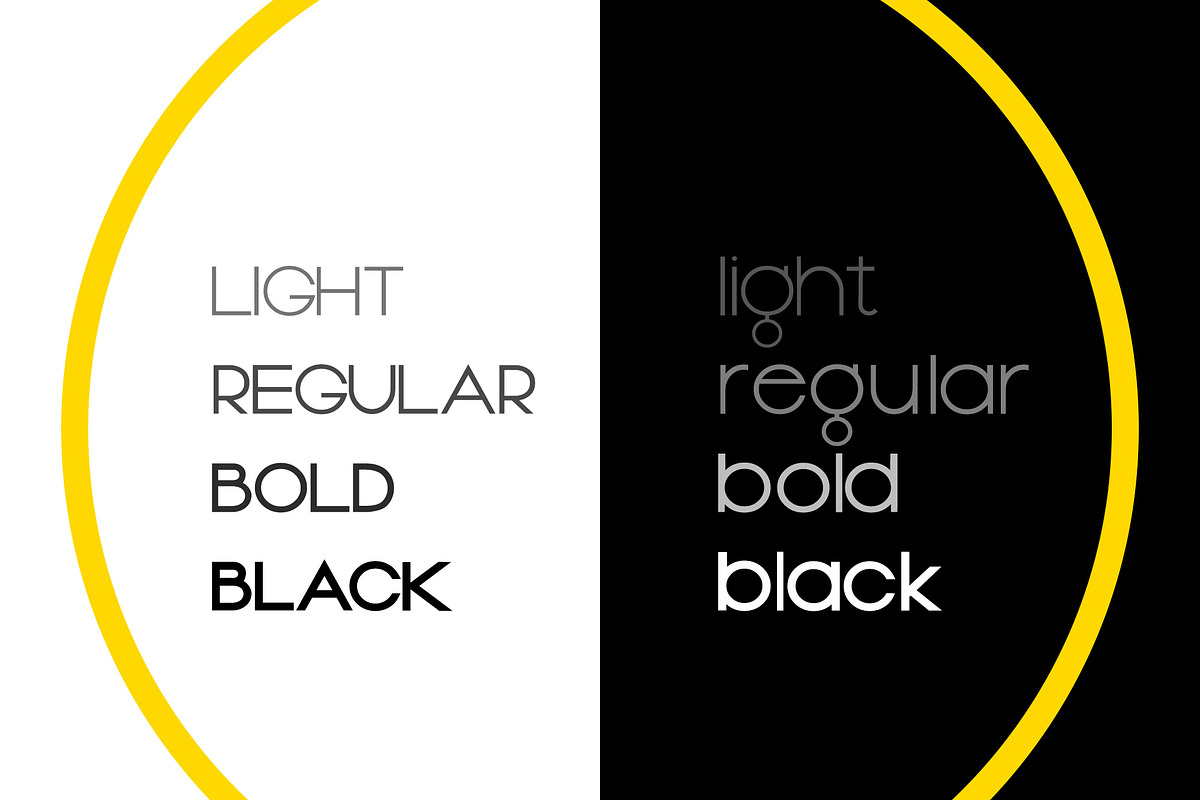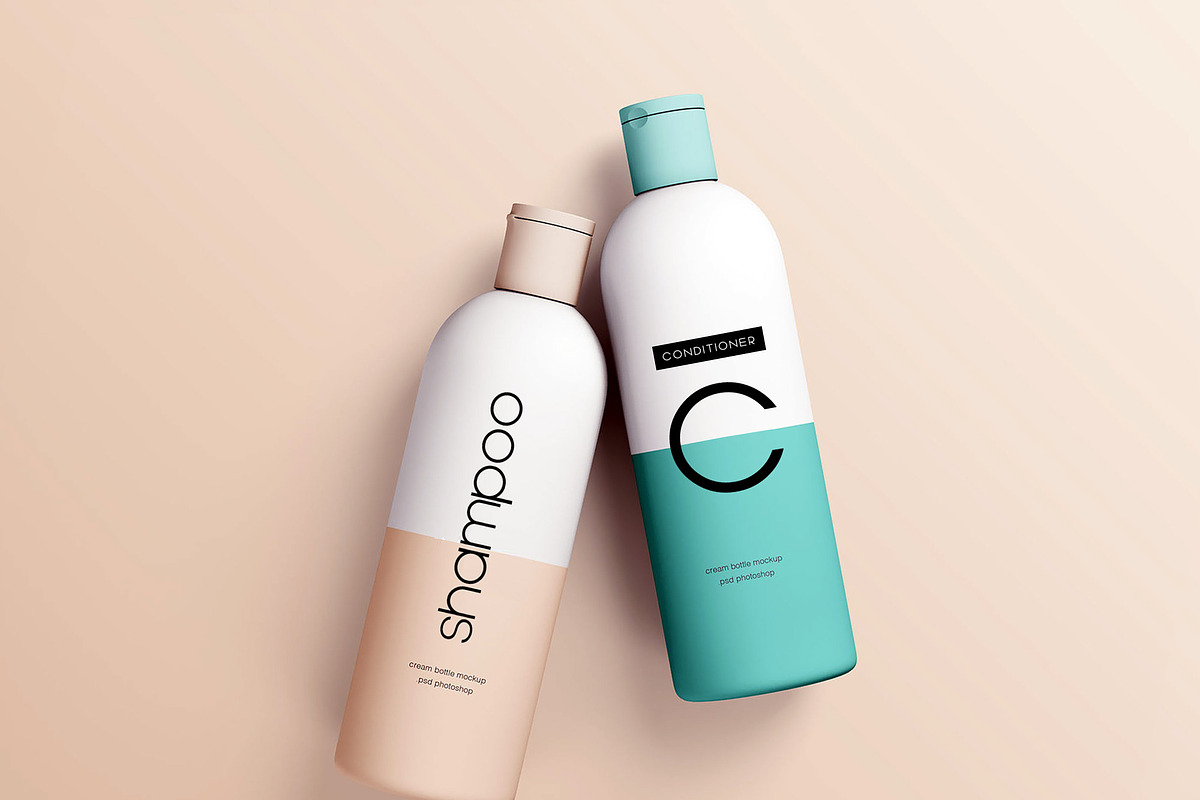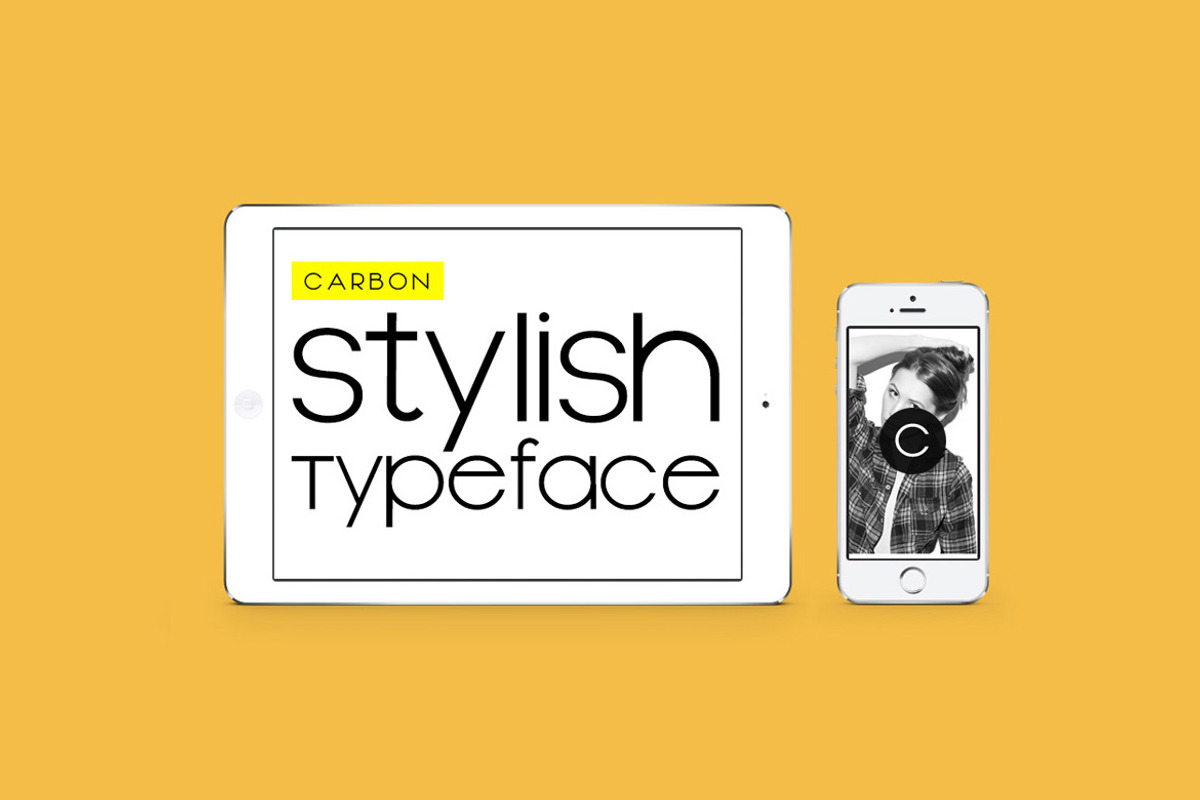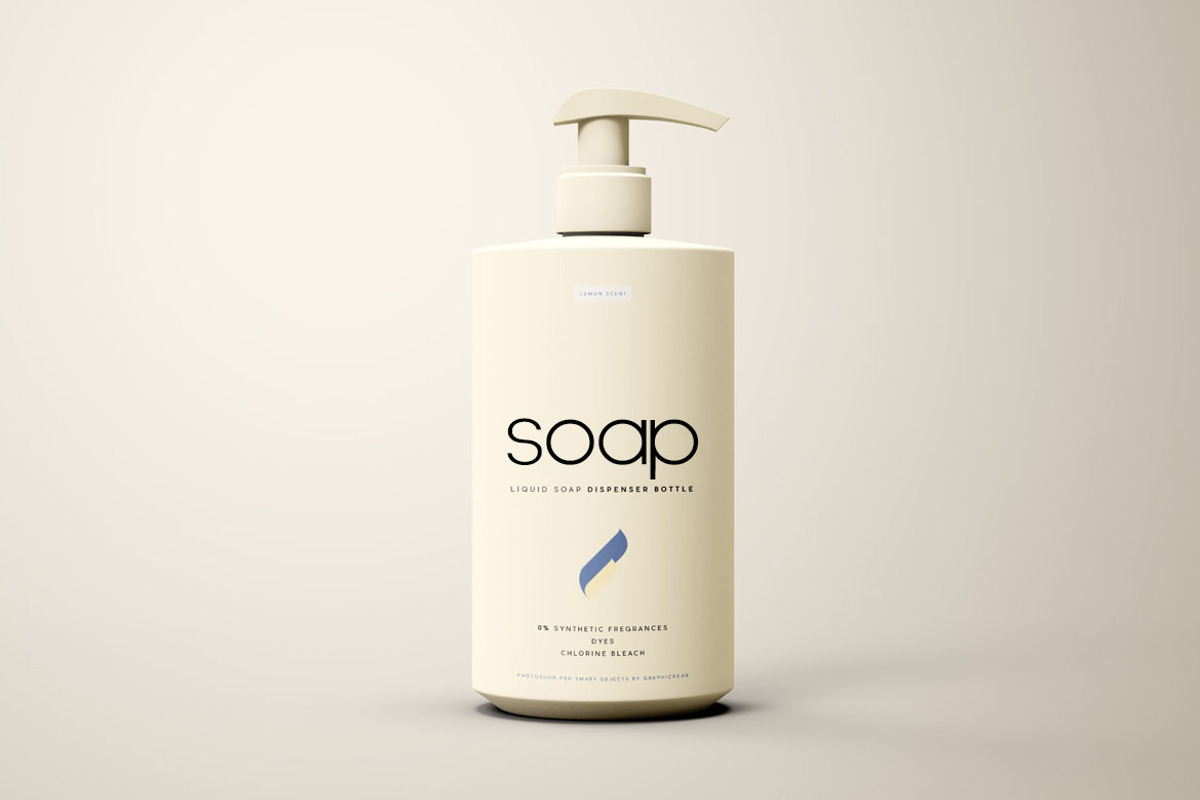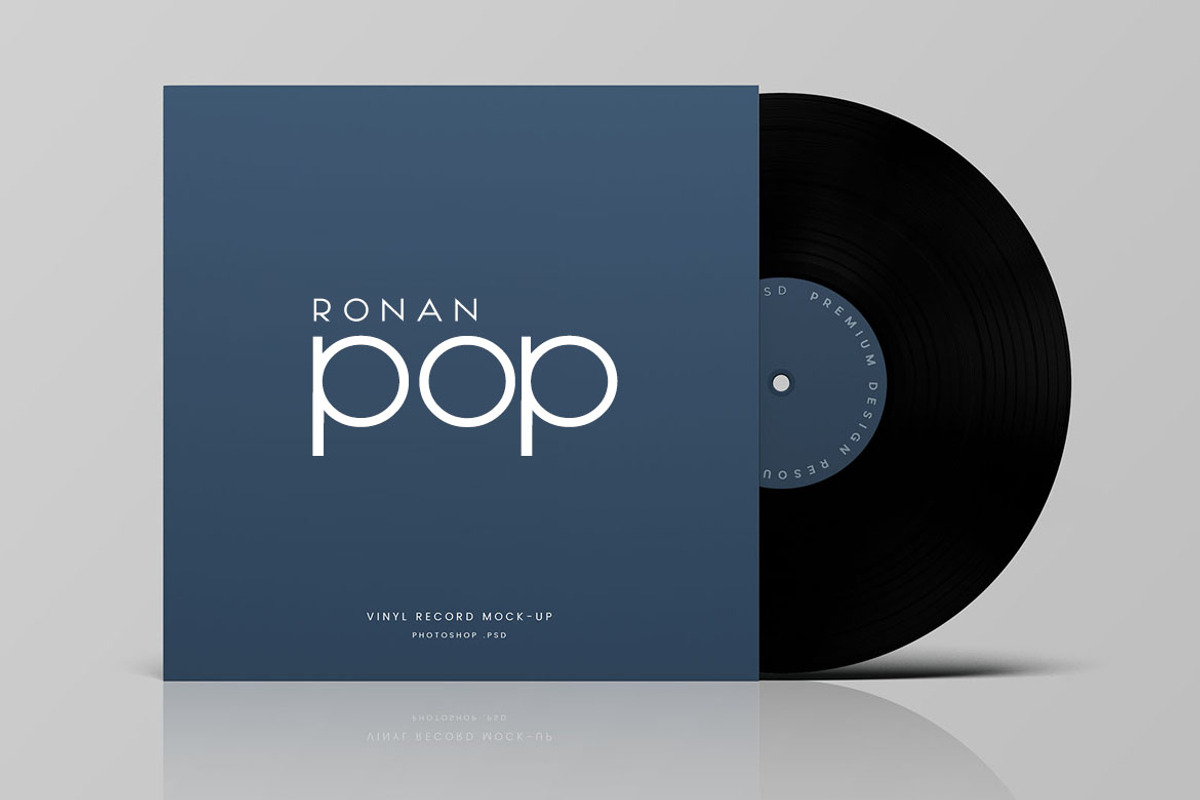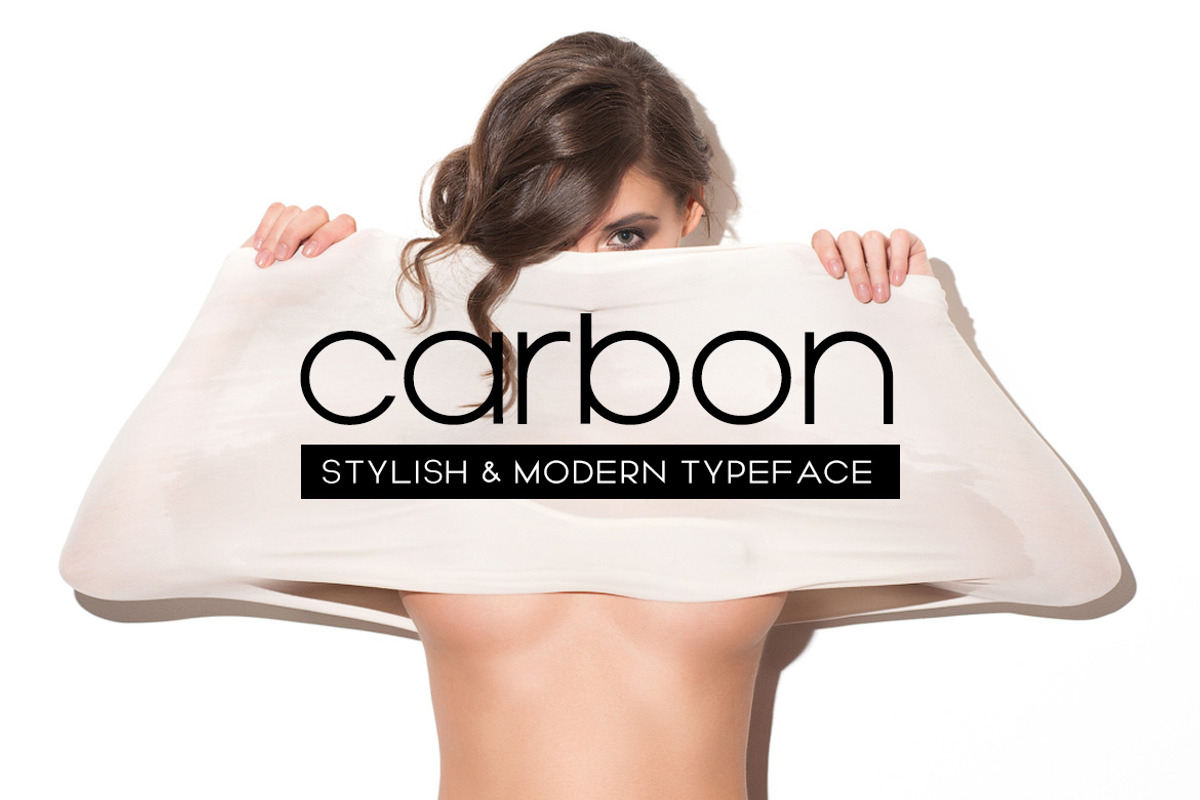
CARBON - Stylish Display Typeface
CARBON is a stylish & modern typeface for headlines, fashion, branding & display usage. This font is perfect in it's unique way, a rare blend of style and character that stand out from common typefaces. This typeface brings you unlimited combinations are possible with adjusted letterspacing techniques such as shown in the demo graphics here.
CARBON comes with 4 weights (Light / Regular / Bold / ExtraBold). The pack contains OTF, TTF and Web Fonts (all EOT, SVG, TTF, WOFF, WOFF2 everything is included).
CARBON - Stylish Display Typeface by Designova® fits naturally into Branding, posters, packaging, typography.